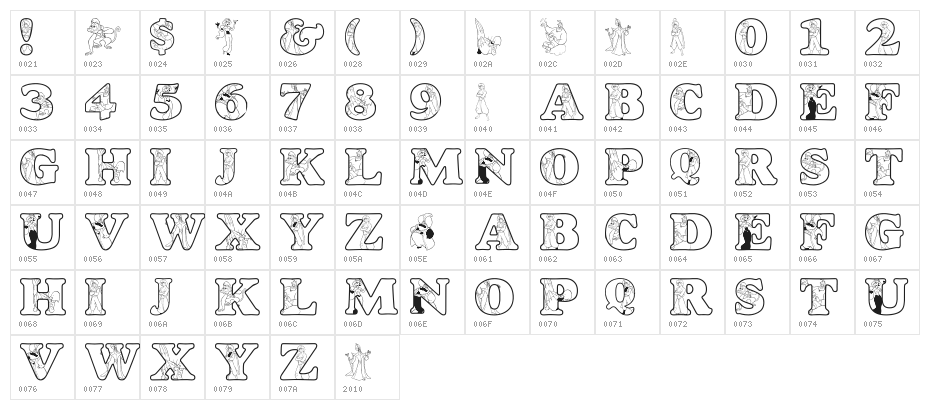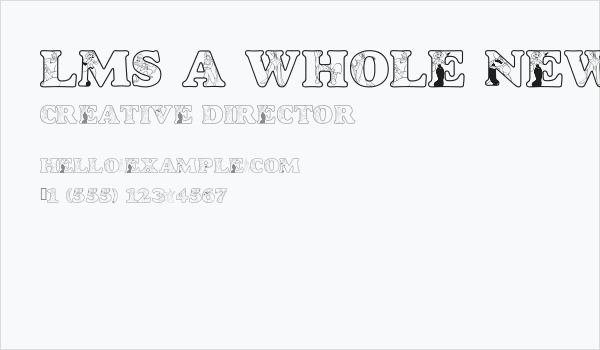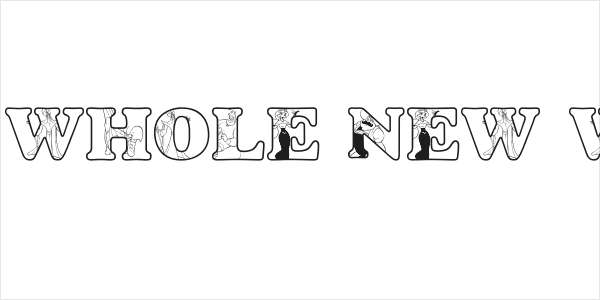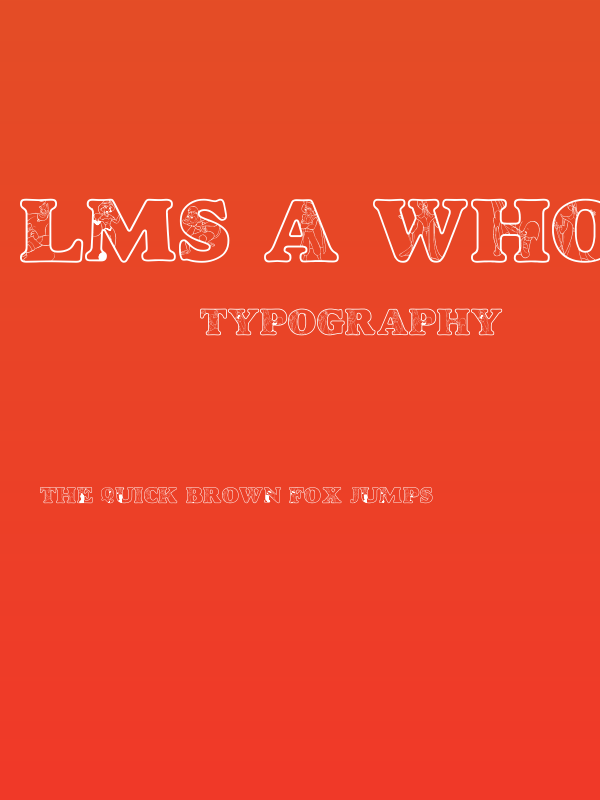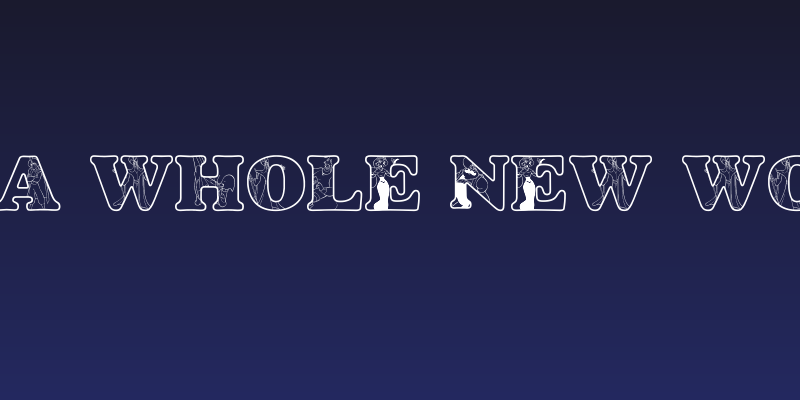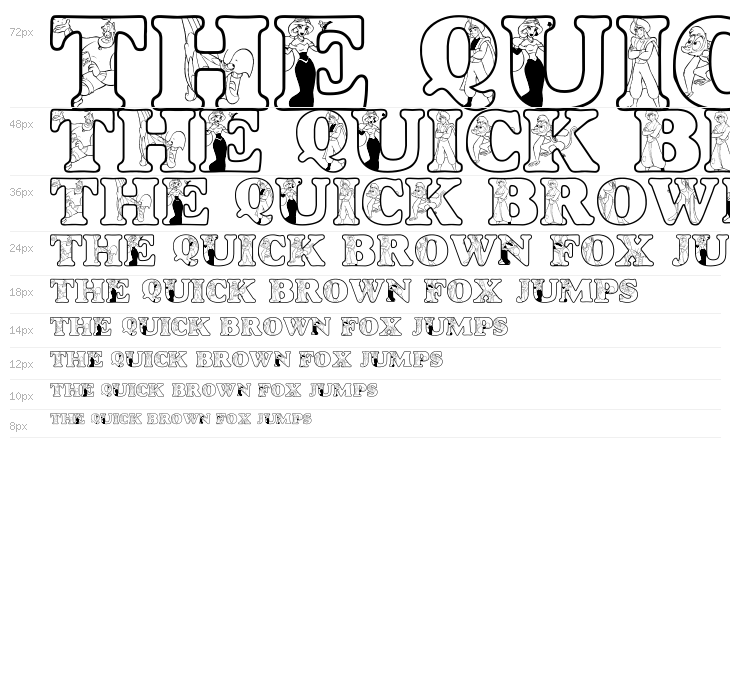
LMS A Whole New World Font
LMS A Whole New World Description
This decorative font features a playful and whimsical design, incorporating intricate illustrations within each character. The uppercase and lowercase letters, as well as numbers, are adorned with detailed graphics that add a unique and artistic flair. The characters are bold and have a strong presence, making them ideal for eye-catching designs. The font's style is reminiscent of storybook illustrations, with a touch of fantasy and magic. The special characters also carry the same illustrative theme, enhancing the overall cohesive look of the font.
Proposed ProjectsIdeal for children's book covers, fantasy-themed posters, playful branding, and creative invitations.